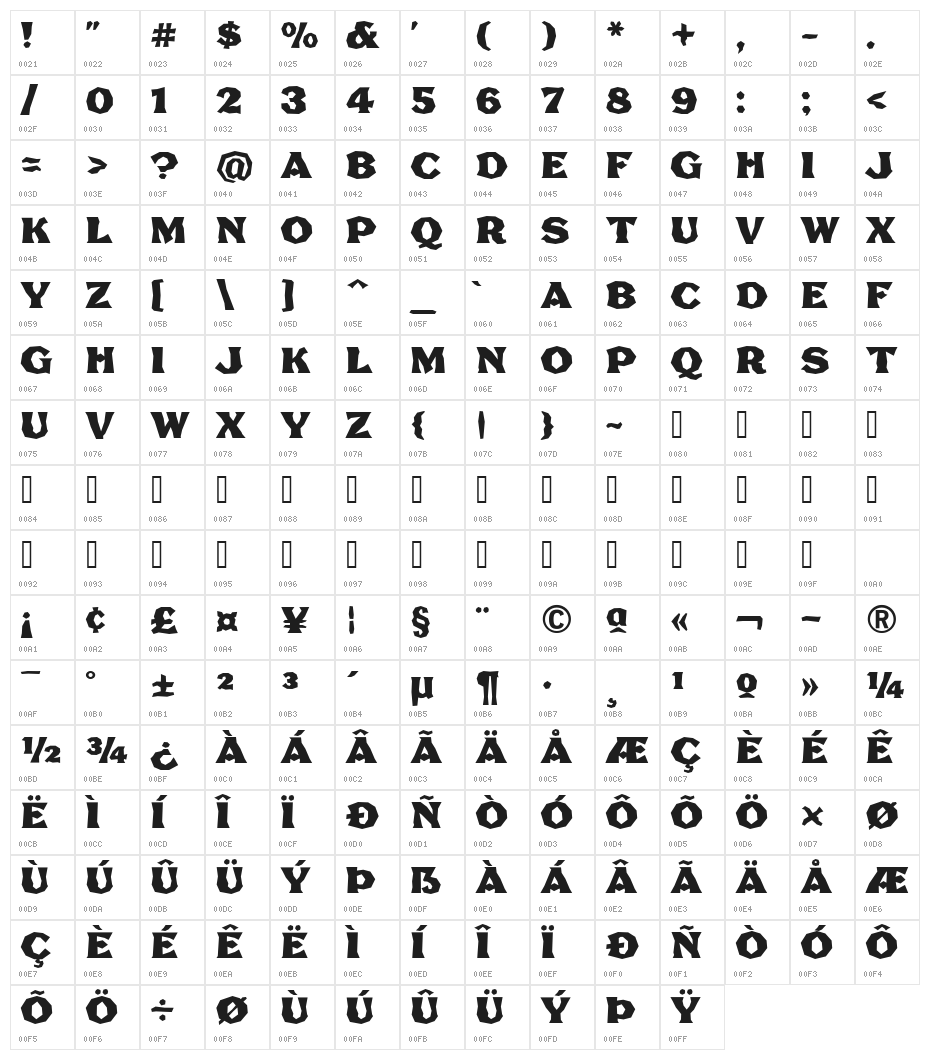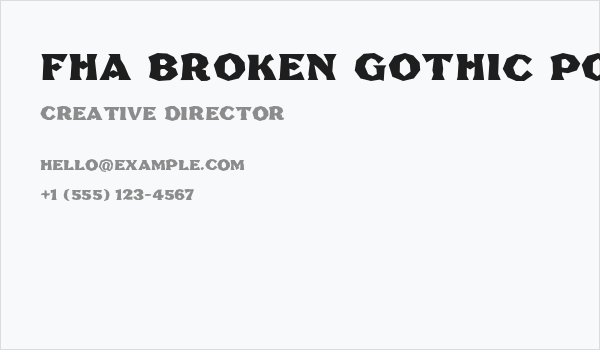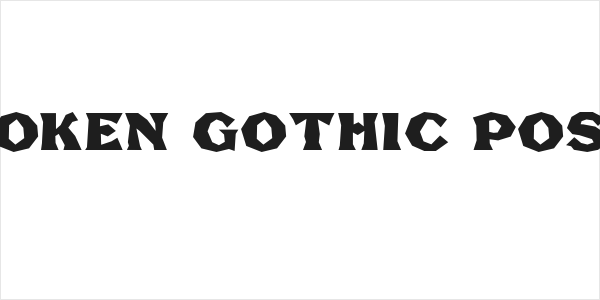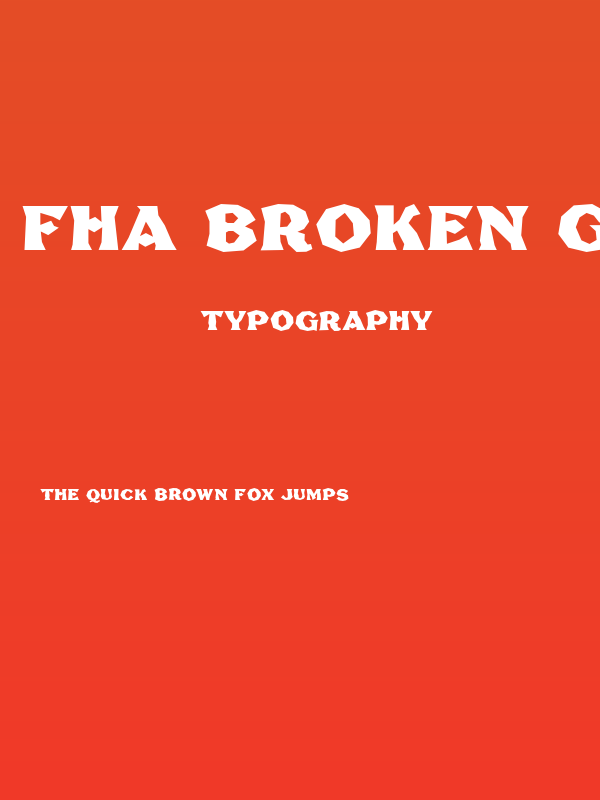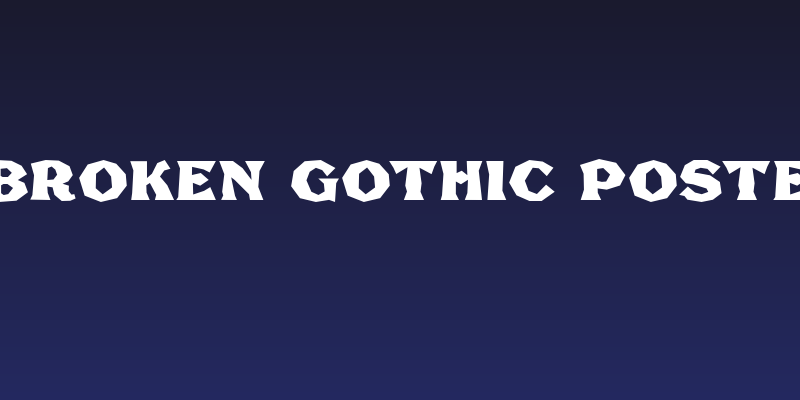
FHA Broken Gothic Poster NC Font
FHA Broken Gothic Poster NC Description
This font features a bold, angular design reminiscent of traditional Gothic styles, yet with a modern twist. The characters are sharply defined with a distinct broken appearance, giving them a unique, edgy look. The uppercase and lowercase letters maintain a consistent style, with strong vertical lines and pointed serifs. The numerals and special characters follow the same aesthetic, ensuring a cohesive appearance across all text. This font's dramatic presence makes it ideal for impactful designs.
| Proposed Projects | Ideal for posters, album covers, branding for edgy or alternative products, and any design requiring a strong, impactful typeface. |